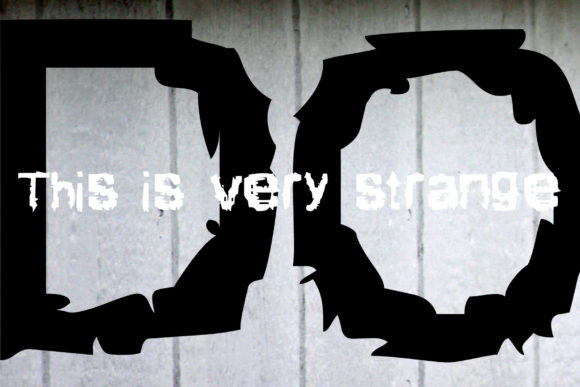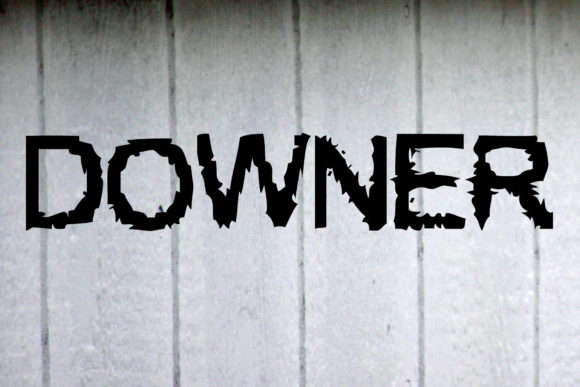
Introducing Downer Font: The Bold and Edgy Typeface for Designers and Crafters
In the world of typography, fonts play a crucial role in conveying the tone and personality of a design. For designers and crafters looking to add a touch of boldness and edginess to their projects, the Downer Font is an excellent choice. This strange yet fascinating font is perfect for creating striking visuals that may or may not have violence lurking in the background.
What is Downer Font?
Downer Font is a unique and bold typeface that is sure to grab attention. Its distinctive design features a rugged and rough texture, giving it a raw and unapologetic feel. The font’s bold and chunky letters are perfect for creating eye-catching headlines, titles, and graphics that demand attention.
Characteristics of Downer Font
So, what makes Downer Font so special? Here are some of its key characteristics:
- Bold and Chunky Letters: Downer Font features bold and chunky letters that are perfect for creating striking visuals.
- Rugged Texture: The font’s rugged texture gives it a raw and unapologetic feel that’s perfect for designs that require a bit of edge.
- Perfect for Large Sizes: Downer Font looks great at large sizes, making it ideal for posters, billboards, and other large-format designs.
- Versatile: Despite its bold and edgy design, Downer Font is surprisingly versatile and can be used for a wide range of design projects.
Use Cases for Downer Font
So, what can you use Downer Font for? The possibilities are endless, but here are some ideas to get you started:
- Posters and Flyers: Downer Font is perfect for creating eye-catching posters and flyers that require a bold and attention-grabbing headline.
- Logos and Branding: The font’s unique design makes it an excellent choice for logos and branding projects that require a bit of edge.
- Social Media Graphics: Downer Font can be used to create striking social media graphics that are sure to grab attention.
- Packaging Design: The font’s bold and chunky design makes it perfect for packaging design projects that require a bit of attitude.
Tips for Using Downer Font
Here are some tips for using Downer Font effectively:
- Use it Sparingly: While Downer Font is bold and attention-grabbing, it can be overwhelming if used excessively. Use it sparingly to create a focal point in your design.
- Pair it with a Simple Font: Pair Downer Font with a simple font to create contrast and add visual interest to your design.
- Experiment with Colors: Downer Font looks great in bold and bright colors. Experiment with different colors to find the perfect combination for your design.
In conclusion, Downer Font is a bold and edgy typeface that’s perfect for designers and crafters looking to add a touch of attitude to their projects. Its unique design and rugged texture make it an excellent choice for creating striking visuals that demand attention. Whether you’re designing a poster, logo, or social media graphic, Downer Font is sure to make a statement.